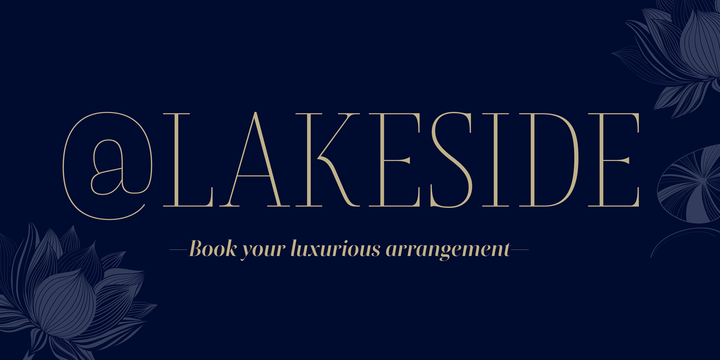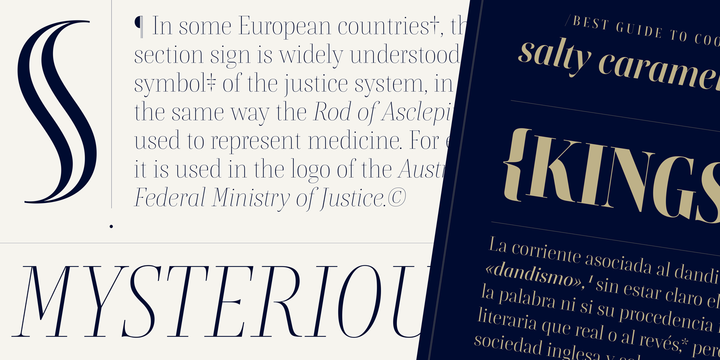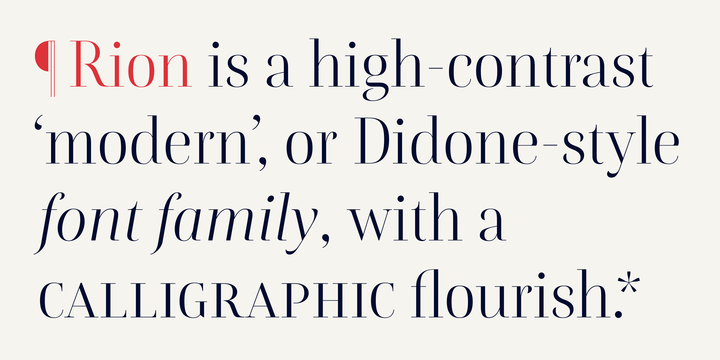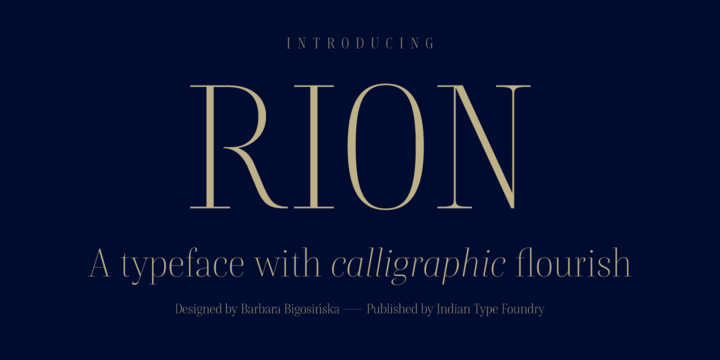
Rion is a high-contrast modern, or Didone-style font family, with a calligraphic flourish. It is intended for typesetting headlines in editorial design settings, as well as signage, the larger texts in exhibition graphics, or any other place where you need big, elegant-looking type.
Rion takes inspiration both from straight-axis nineteenth century typefaces and pointed-pen calligraphy.
Its letterforms contain a high degree of stroke-contrast; this gives them a look of sophistication.
The family includes six weights, ranging in style from Light through Black. Each weight has both an upright font and an italic on offer. The fonts default numerals are proportionally-spaced oldstyle figures. Lining figures are also available, via an OpenType feature. Rions characters are all a bit condensed; this narrow feeling is especially present in the fonts uppercase letters.
The ascenders of the lowercase letters rise slightly above the tops of the capitals.
In the upright fonts, the a and the g are double-storied. In the italics, they are single-storied. Each font includes small caps, and 13 f-ligatures, too. Special characters in the fonts such as the hashtag and the @-symbol, as well several punctuation marks and mathematical glyphs are drawn with thin, monolinear hairline strokes, allowing them to disappear into the background somewhat, and let the real alphabetic characters shine more prominently.
Rion is the work of Barbara Bigosinska, a Polish type designer living in the Netherlands, who is a graduate of the MA Type & Media programme at the Royal Academy of Art (KABK) in The Hague.